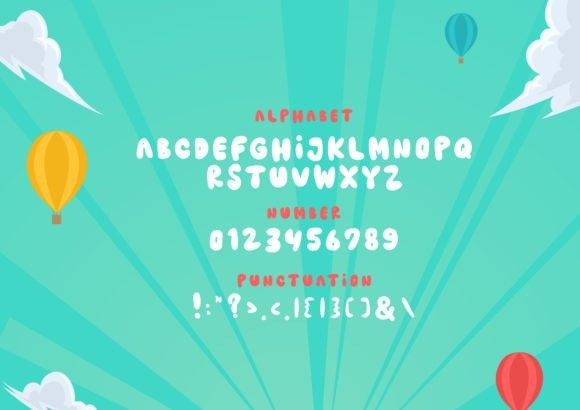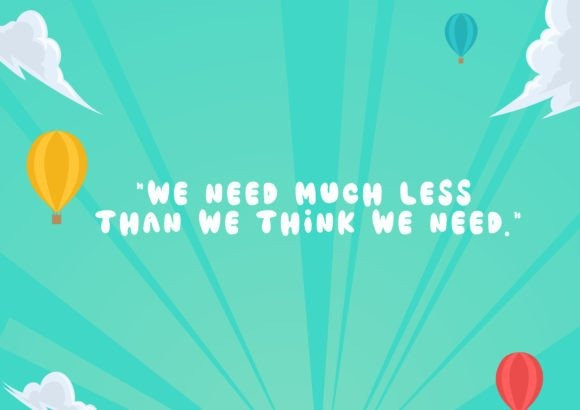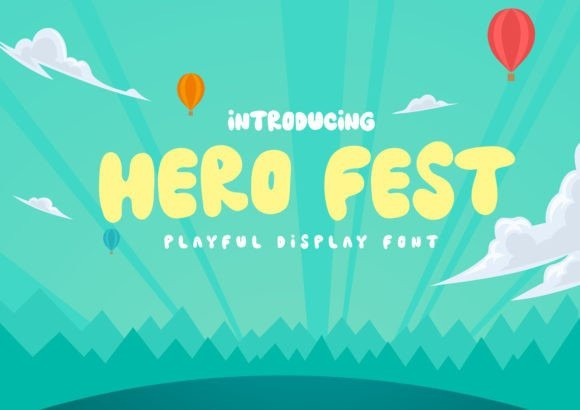
Hero Fest Font
Hero Fest Display Font is a whimsical, hand-crafted and outlined display font. It is perfect for child related projects, cute quotes and so much more. Hero Fest is a whimsical, hand-crafted and outlined display font. It is perfect for child related projects, cute quotes and so much more. Hero Fest is a whimsical, hand-crafted and outlined display font. It is perfect for child related projects, cute quotes and so much more.